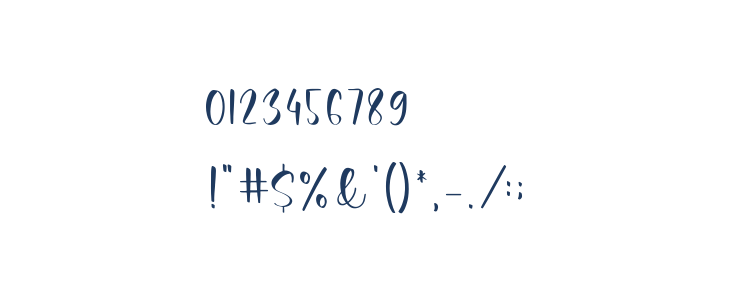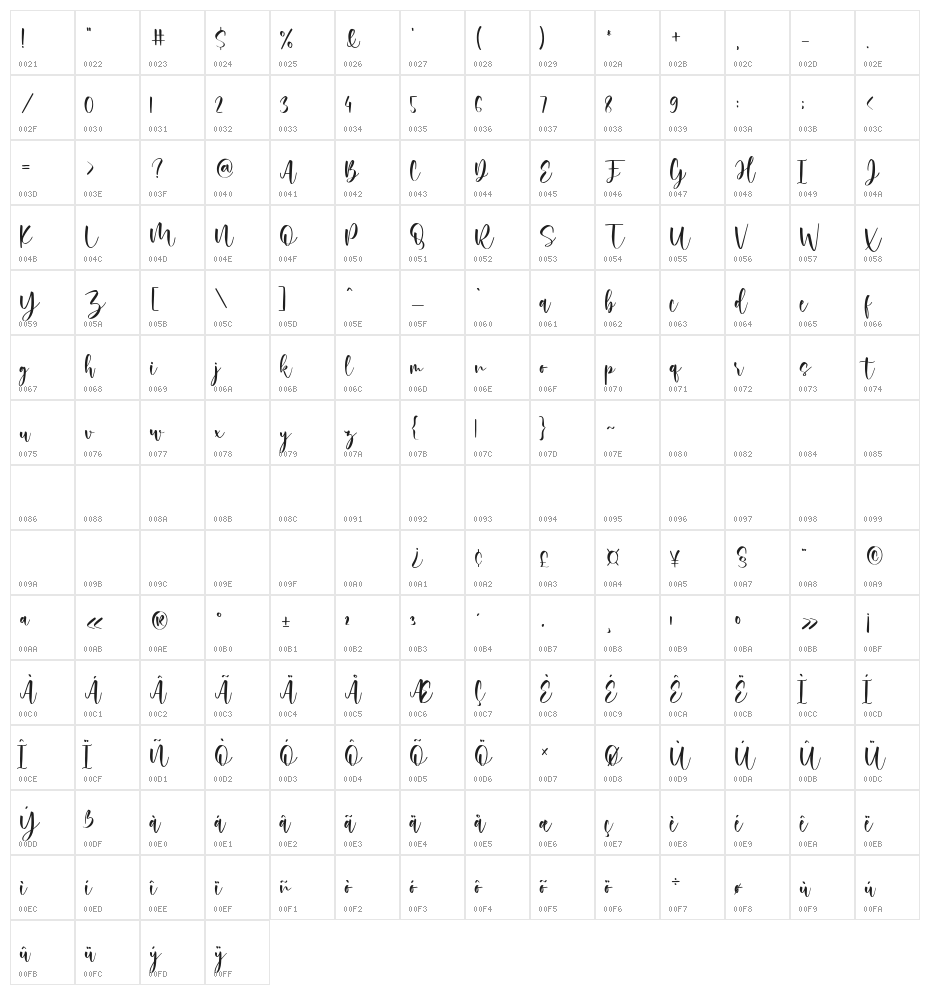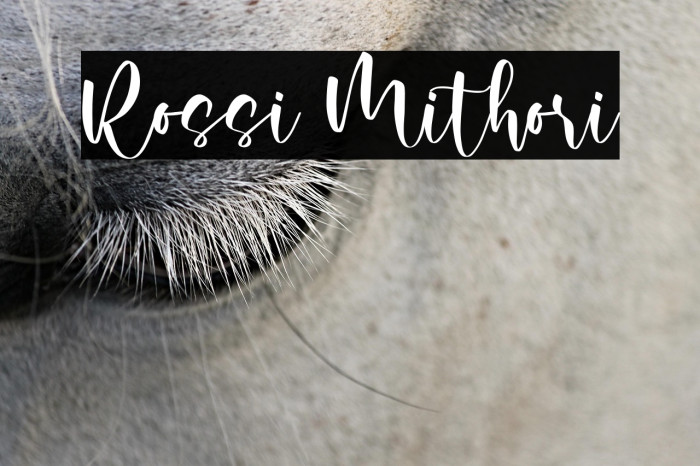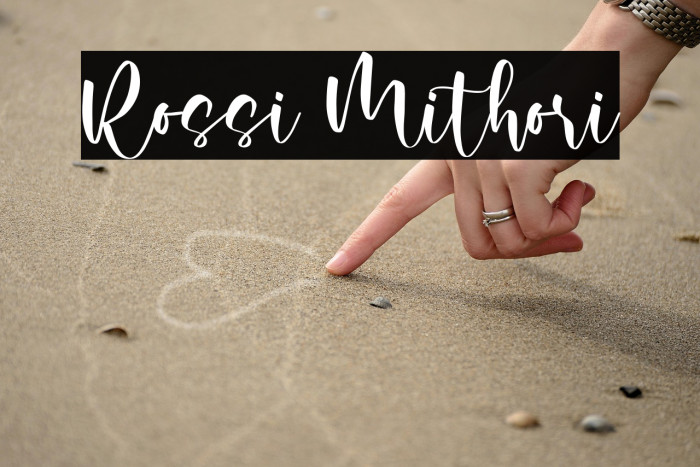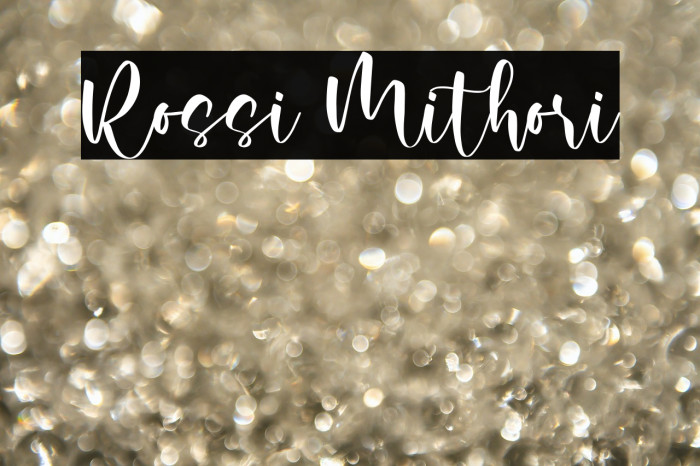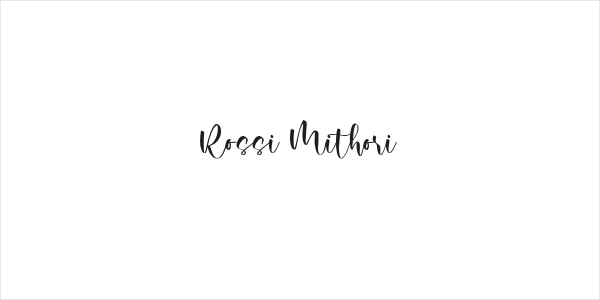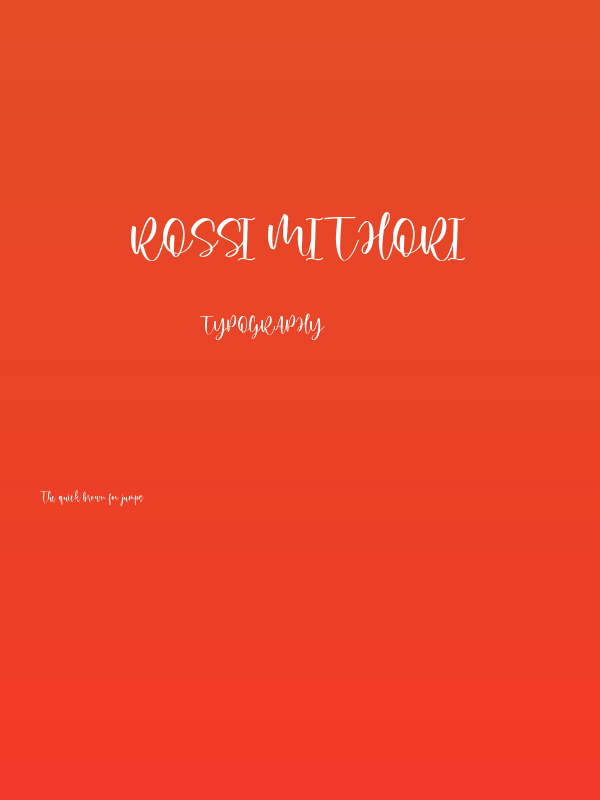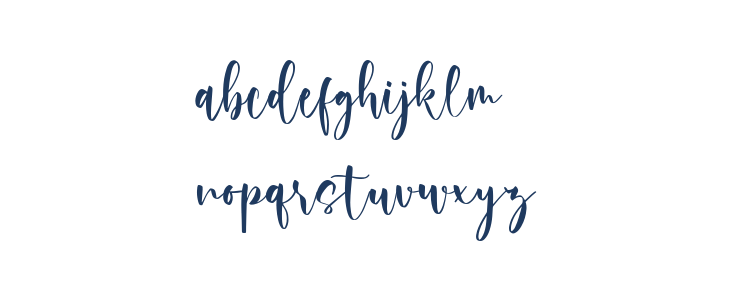
Rossi Mithori Font
Rossi Mithori Description
This font exudes a lively and artistic flair, characterized by its flowing, cursive style that mimics elegant handwriting. The uppercase letters are bold and sweeping, with dramatic flourishes that add a sense of movement and grace. The lowercase letters maintain this fluidity, offering a harmonious blend of curves and loops that enhance readability while maintaining a stylish appearance. Numbers and special characters are crafted with the same attention to detail, ensuring consistency across all elements. The overall design is both sophisticated and approachable, making it suitable for a variety of creative applications.